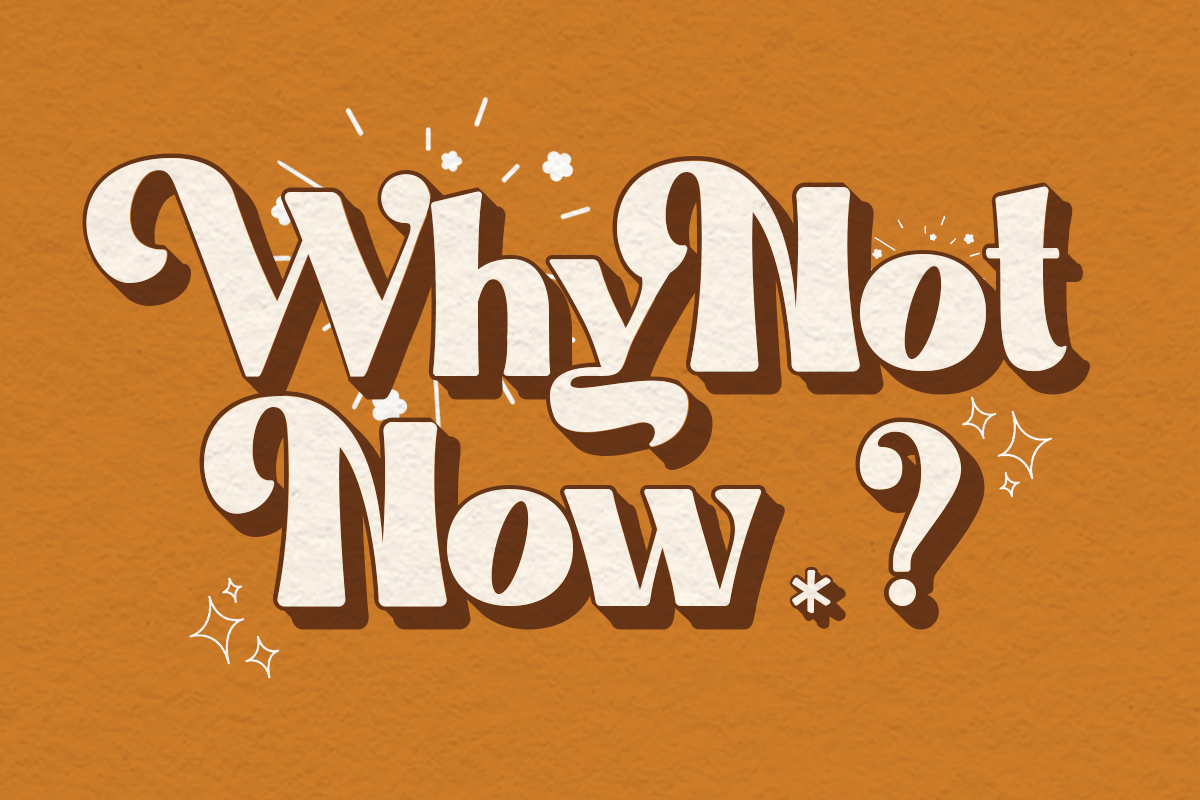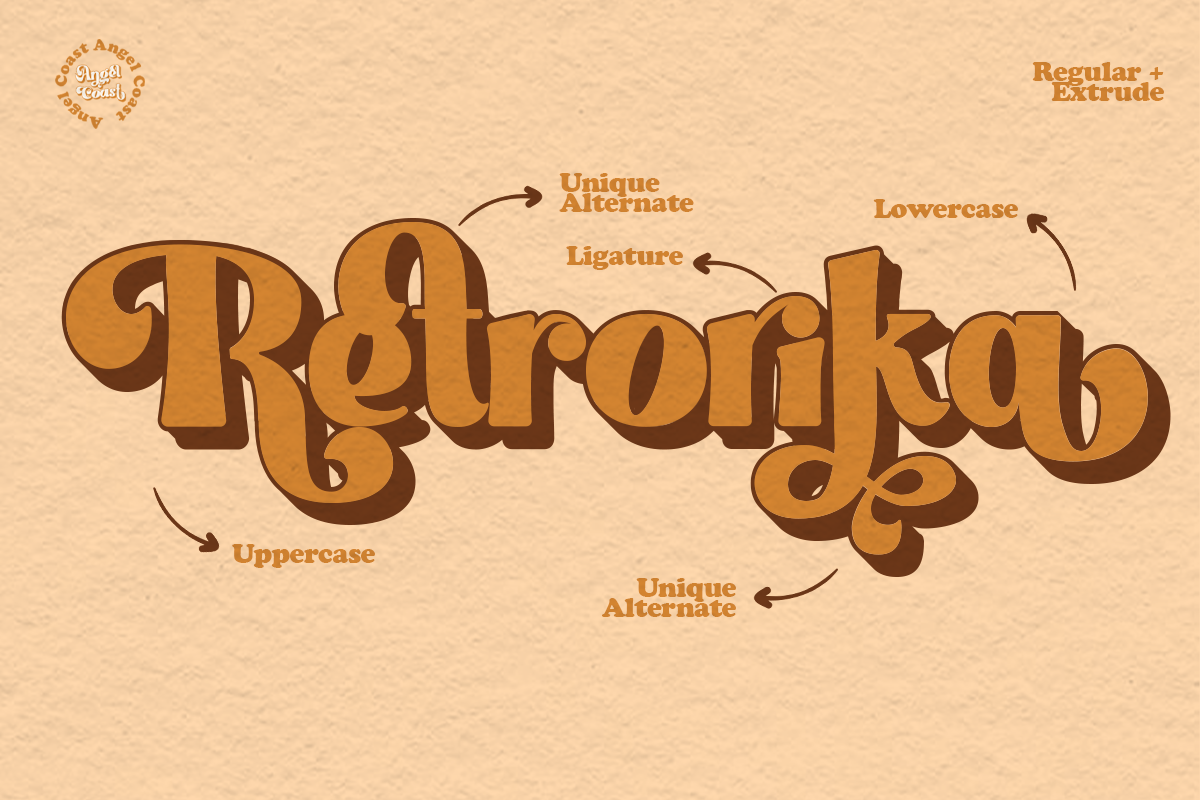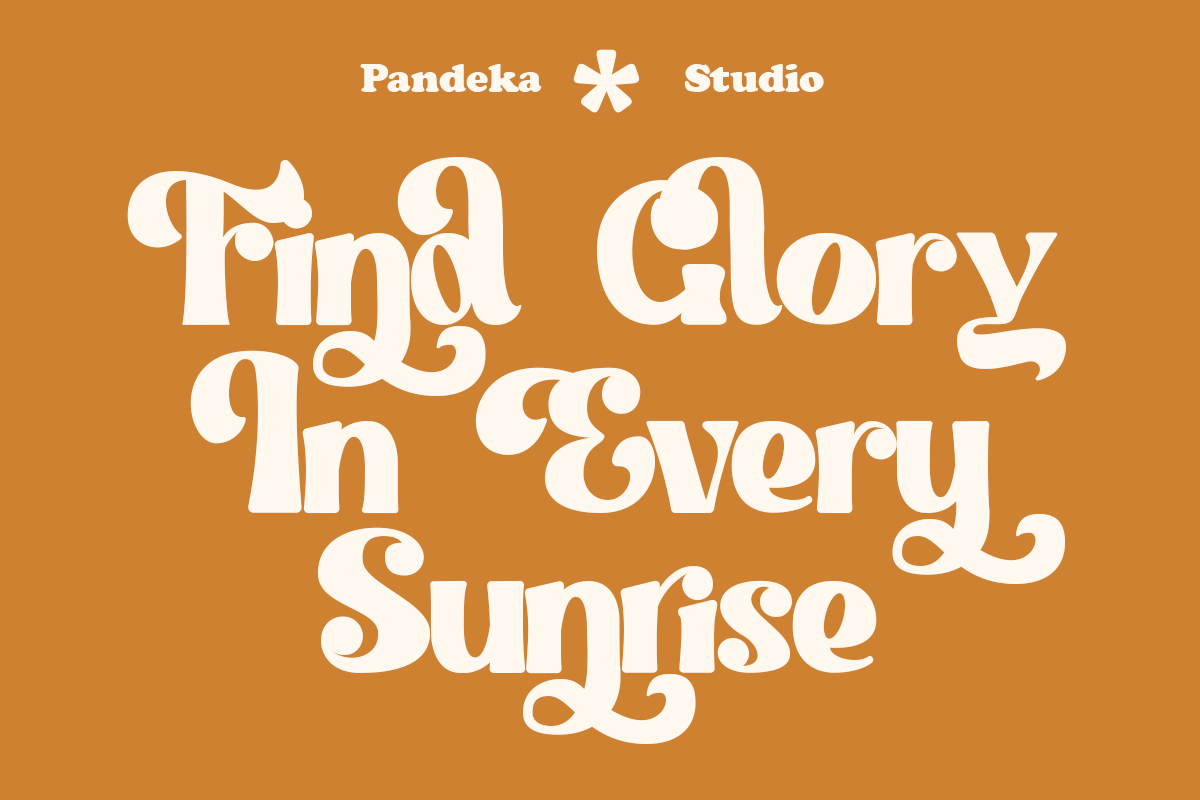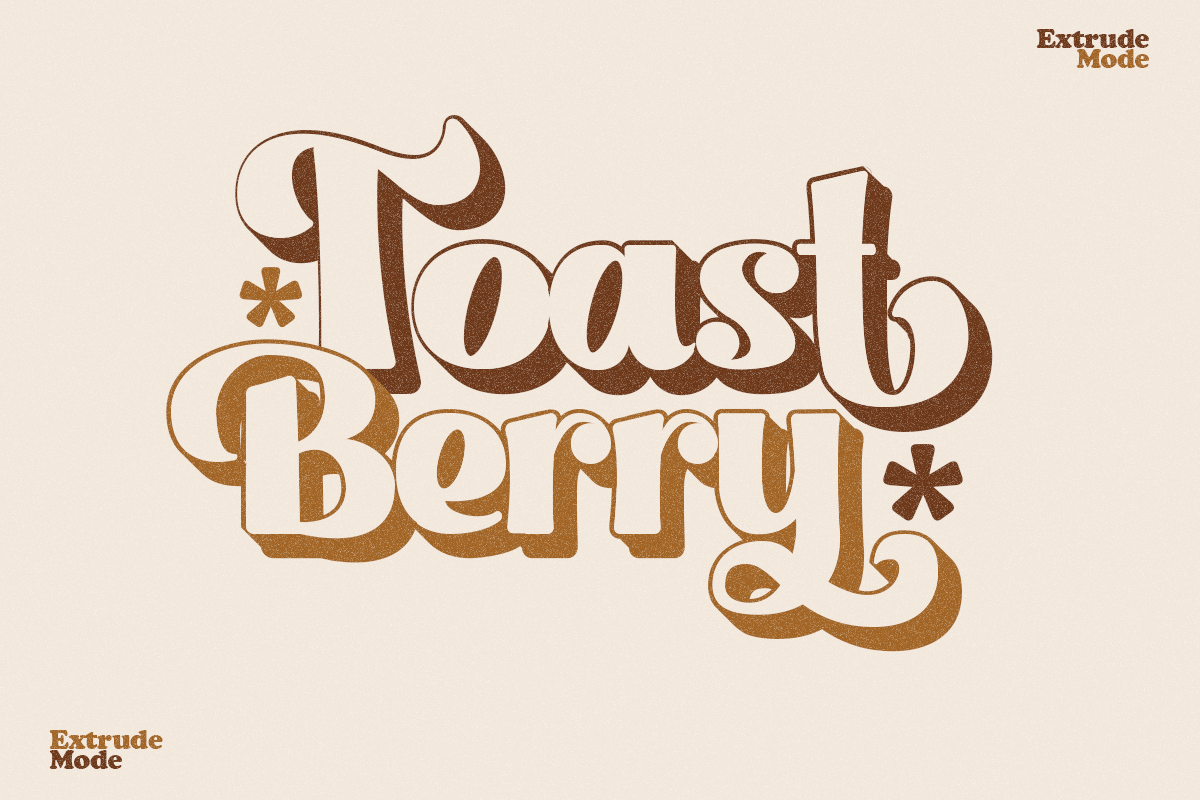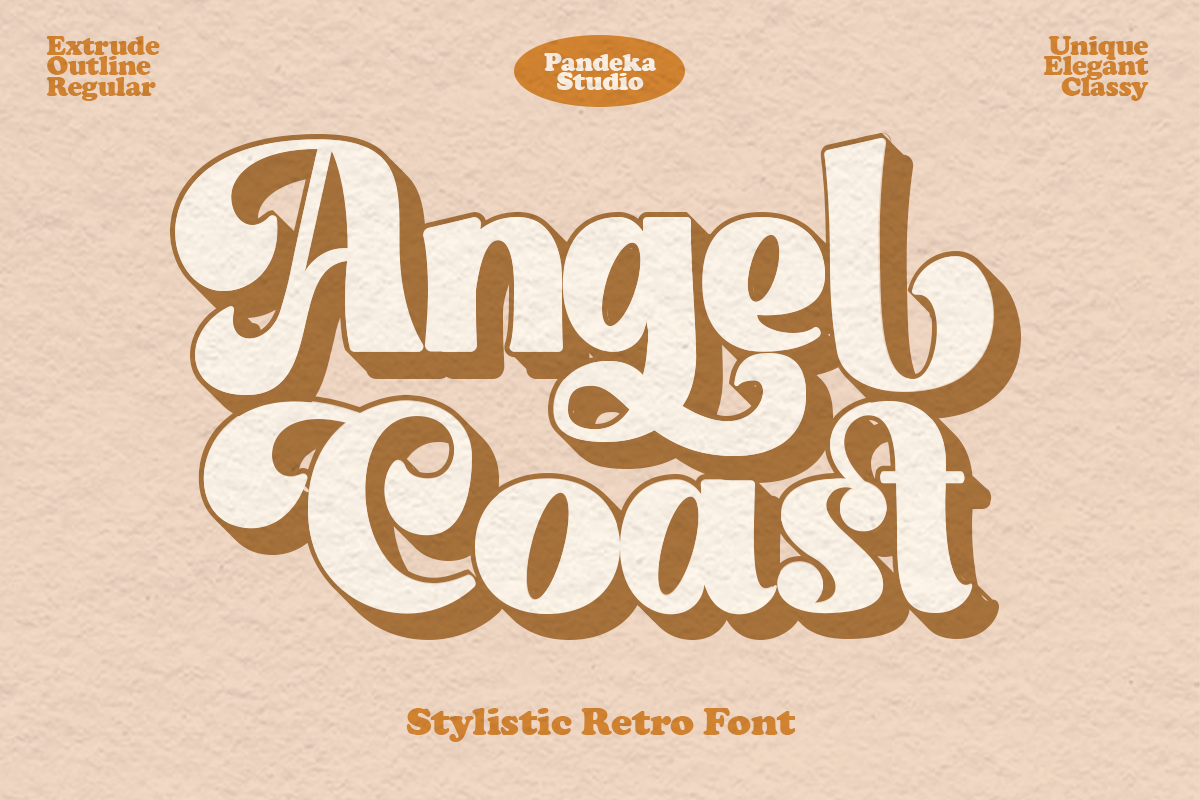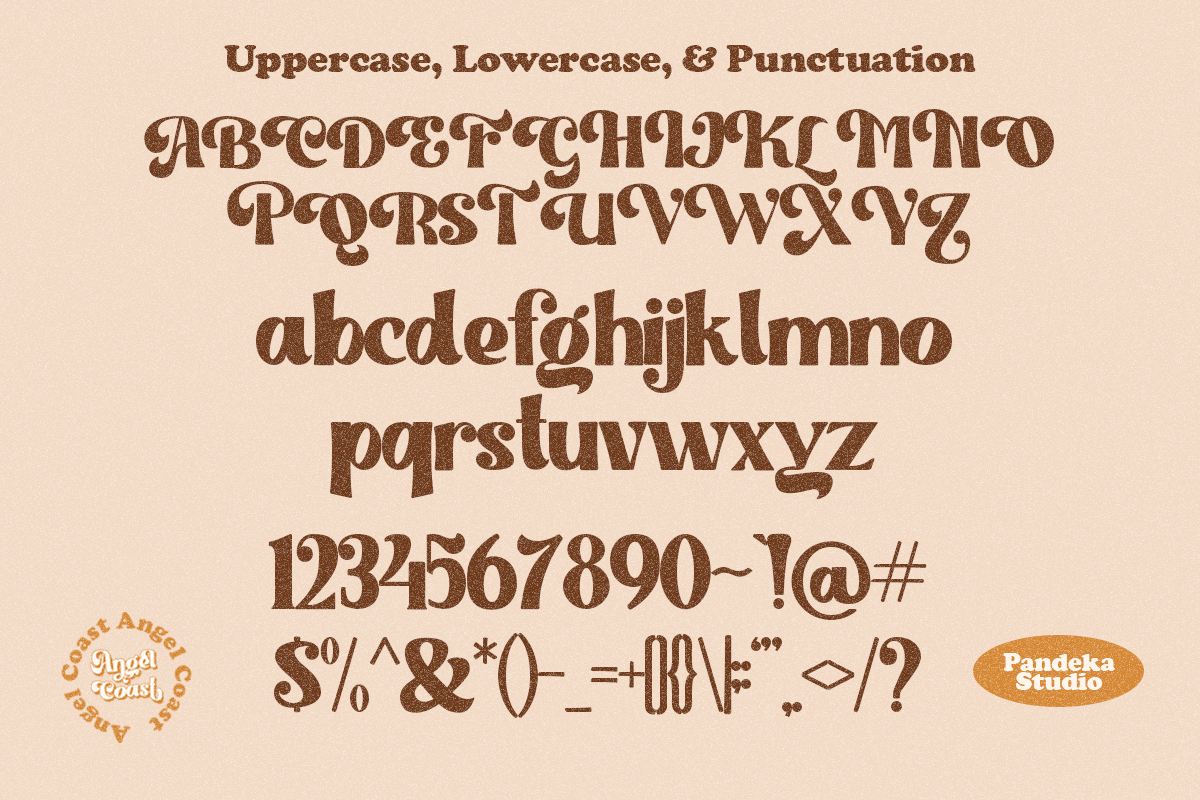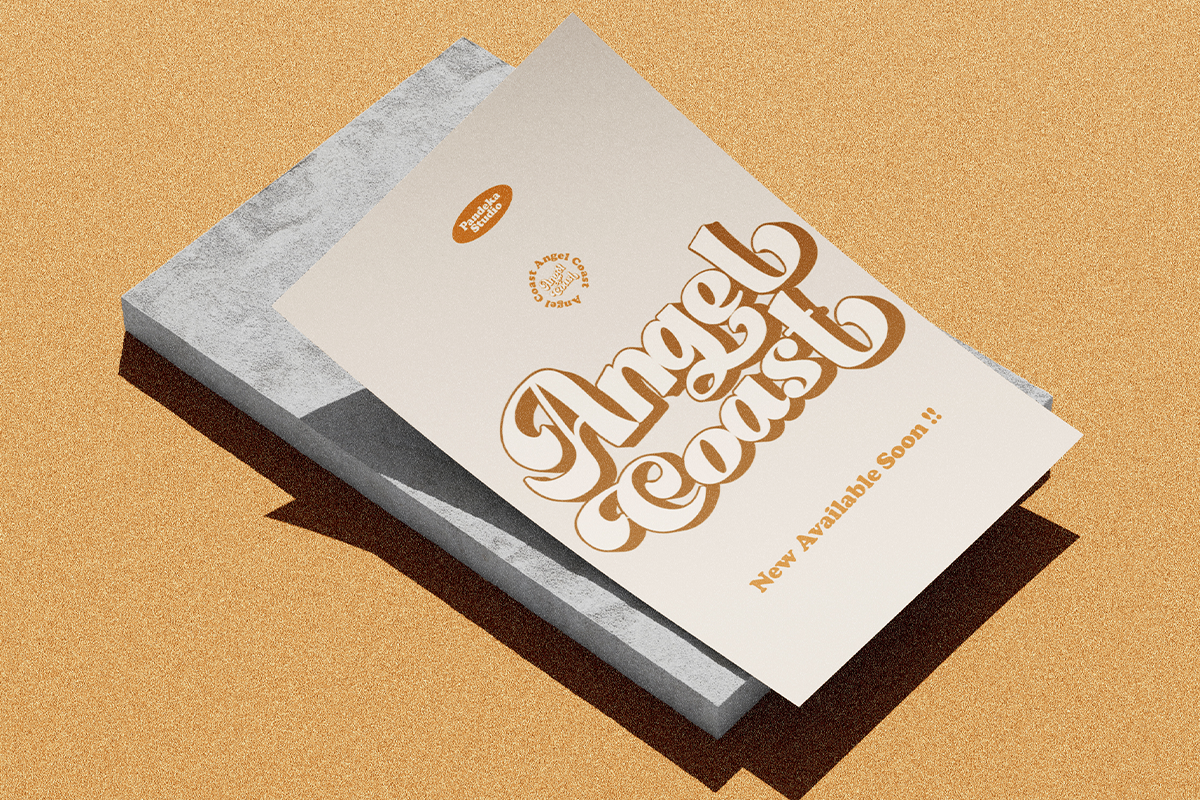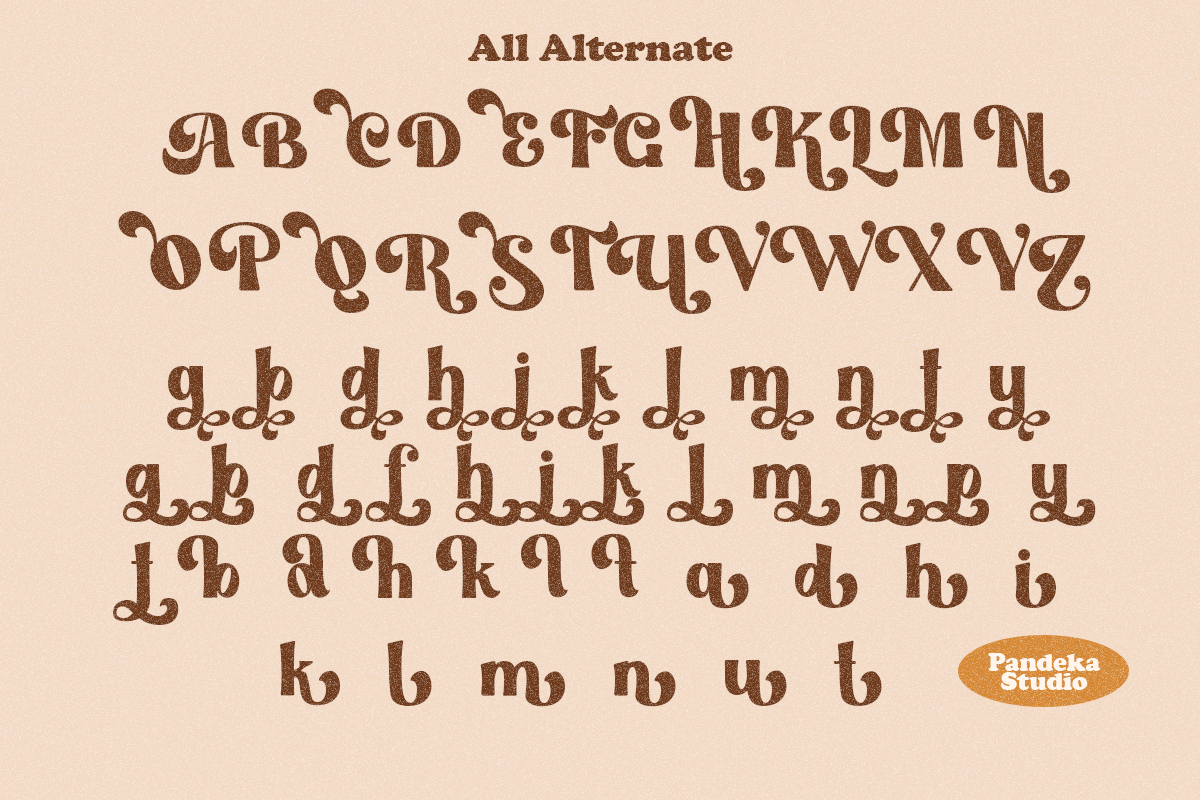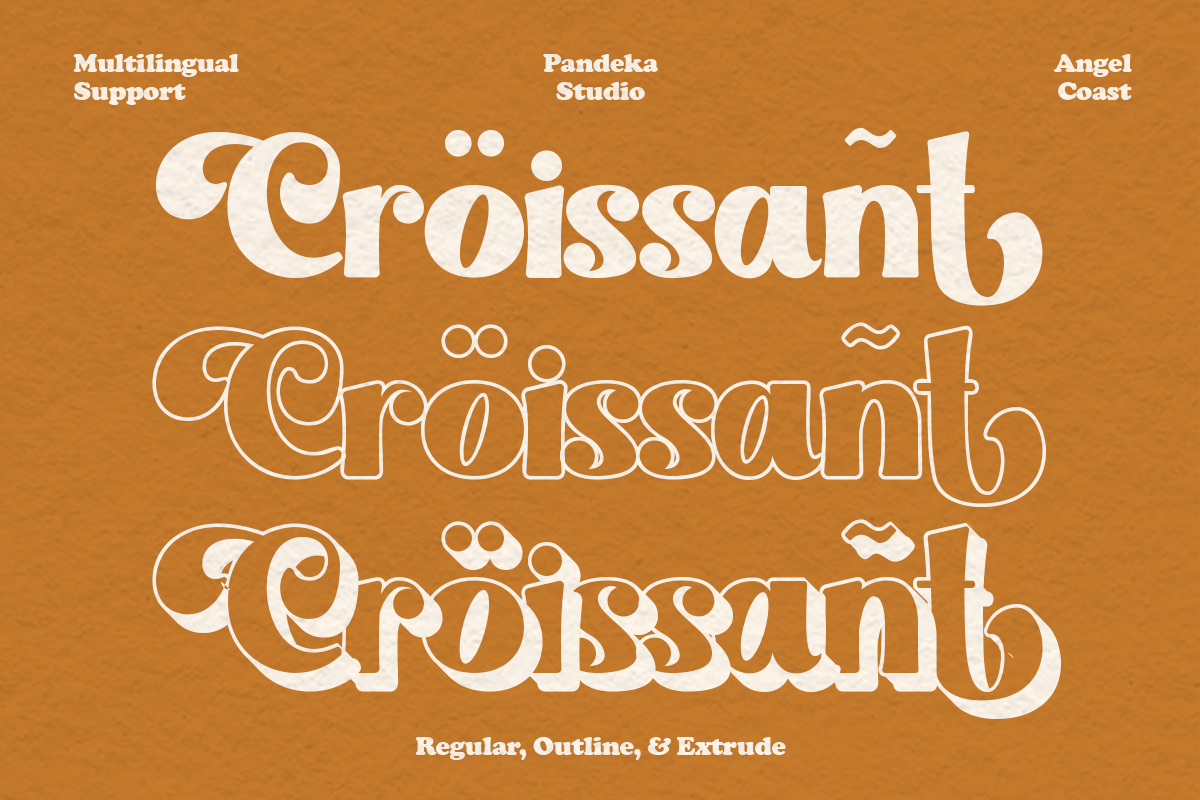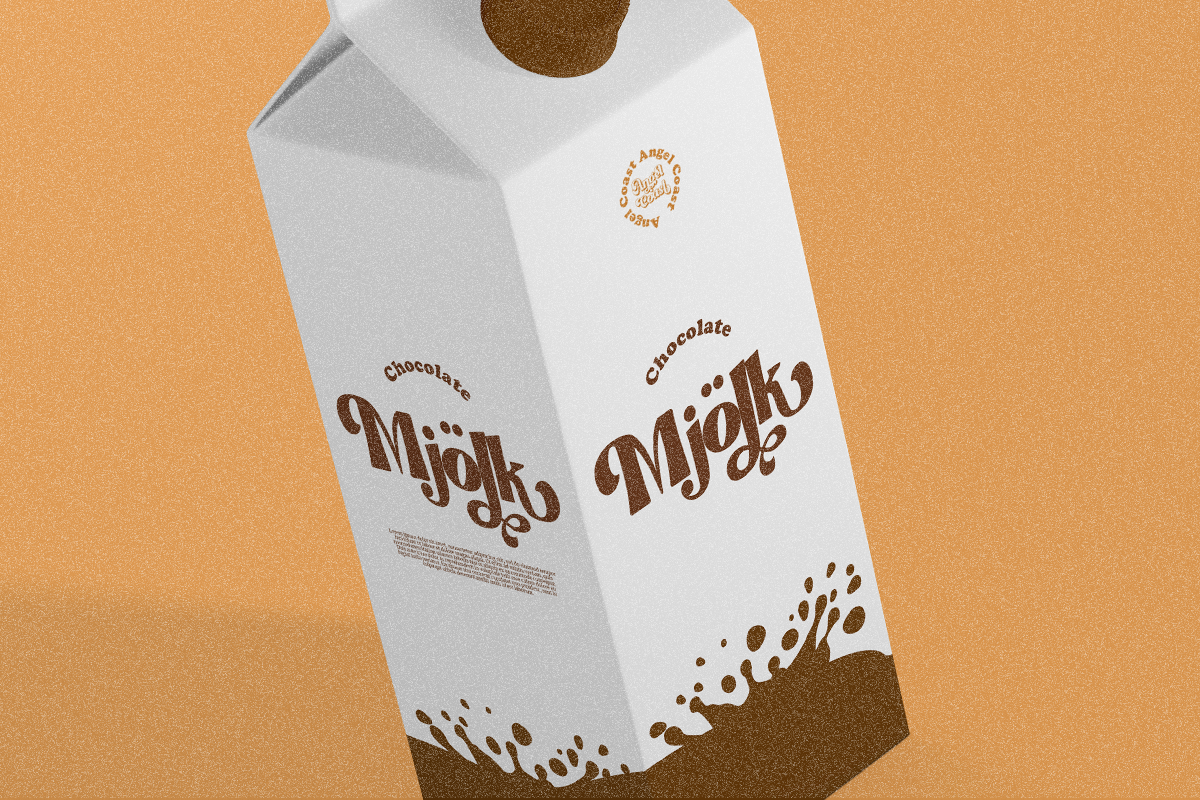
Angel Coast - Retro Modern Font
Say hello to new Decorative Retro Modern, Angel Coast!
Angel Coast font is a retro serif and bold display font. You will get three types of fonts in this pack, Regular, Outline and Shadow version. Use this display font to add that special retro touch to any design idea you can think of!
Very suitable for logotype, Stickers, Packaging design, Cricut Project, headlines, brand identity, t shirt or apparel industry, posters, magazines, books, YouTube, Instagram, websites, or any of your creative design projects.
- Regular, Outline and Shadow version
- Special Alternates